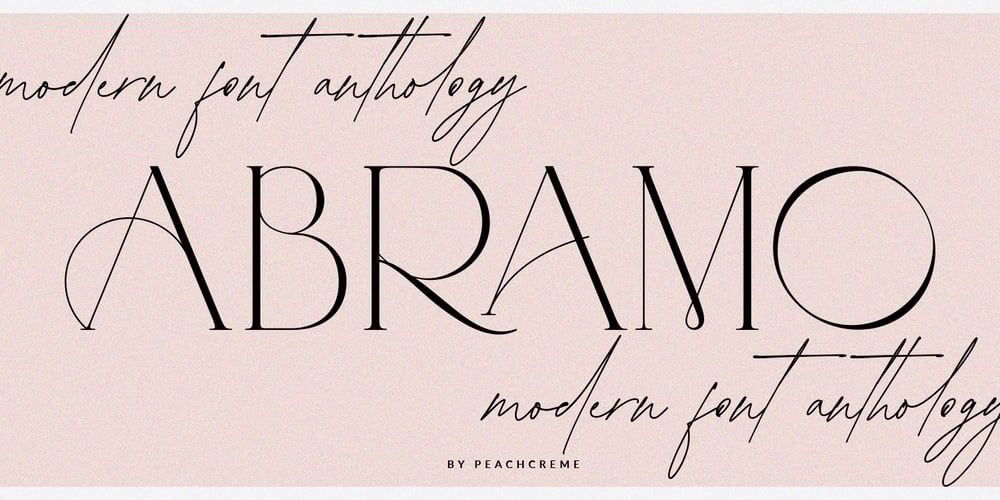
Abramo Font Family was designed by Gulya Yeap and published by PeachCreme. Abramo contains 2 styles and family package options. Abramo is a perfect blend of elegance and modernity. Abramo is a set of two modern fonts: an all-caps serif and a stylish script. the smooth curves of the serif create a feminine feel. Abramo works great for logos, social media posts, invites and many other projects. It comes with multilingual support also.